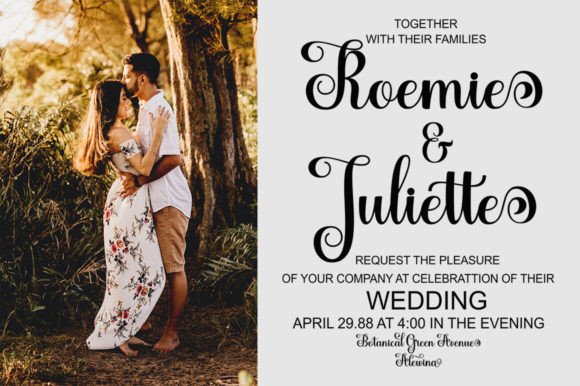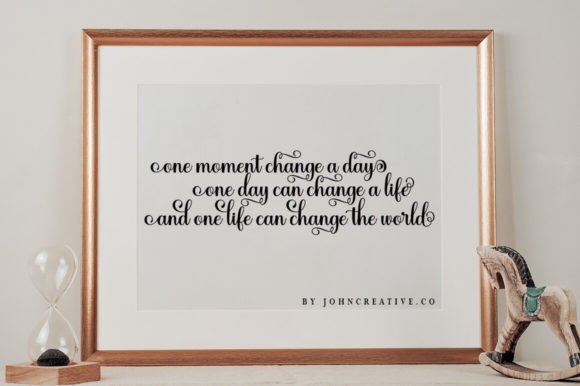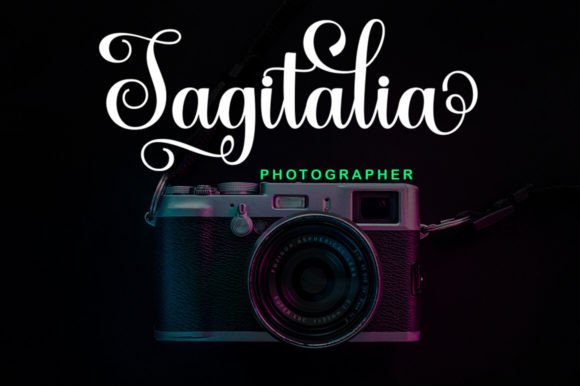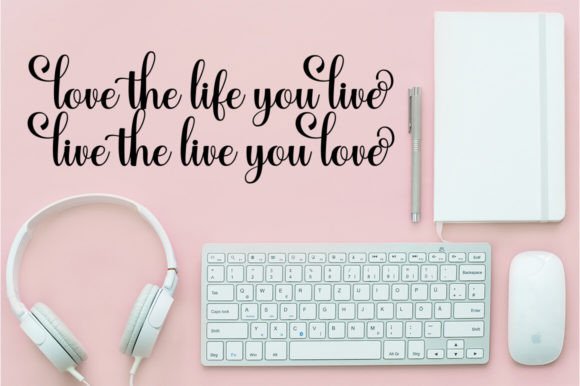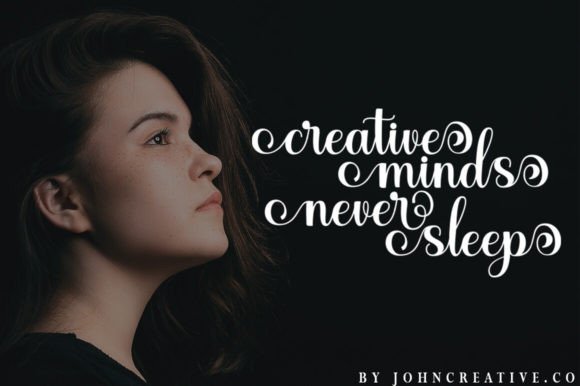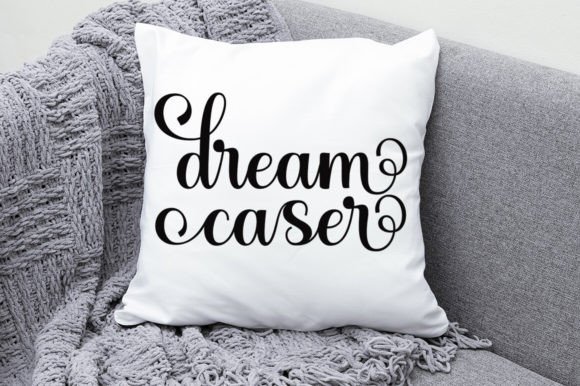
The Designer’s Delight: Uncovering the Elegance of Begallia Font
I’ll never forget the moment I stumbled upon Begallia Font while working on a project that required a touch of elegance and sophistication. I had been searching for the perfect handwritten font for hours, trying out various options, but nothing seemed to fit the bill. That was until I laid eyes on Begallia – its flowing script and incredibly distinct style instantly captivated me. In this article, I’ll share my experience with Begallia Font, its features, and how to make the most of it in your designs.
An Honest Review of Begallia Font
- ✨ Elegant and sophisticated design that’s perfect for a variety of projects
- ✅ PUA encoded, making it easy to access all glyphs and ligatures
- 💫 Timeless style that works well for both digital and print designs
- 🎨 Highly versatile and can be used for a range of applications, from branding to invitations
While Begallia Font is an excellent choice, there are a few things to keep in mind:
- ⚠️ Some users may find the font a bit too ornate for certain projects, such as body text or small captions
- 🤔 Limited availability of certain characters or symbols, but this can be overcome with a little creativity
The Backstory of Begallia Font
Begallia Font was created with the intention of crafting a beautiful, elegant script font that would evoke a sense of sophistication and refinement. The designer aimed to create a font that would be versatile and easy to use, with a range of applications from branding to invitations. While the exact story behind Begallia Font may be unknown, its design is undoubtedly a labor of love.
| Font Name | Begallia Font |
| Author | mr.johncreative.co1 |
| What is Begallia Font? | Begallia Font is a flowing handwritten font with an elegant touch, perfect for a variety of projects. |
| Is Begallia Font PUA encoded? | Yes, Begallia Font is PUA encoded, making it easy to access all glyphs and ligatures. |